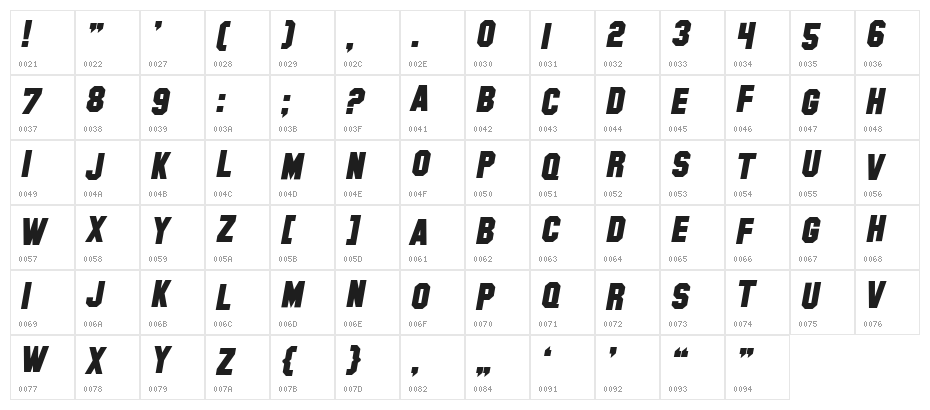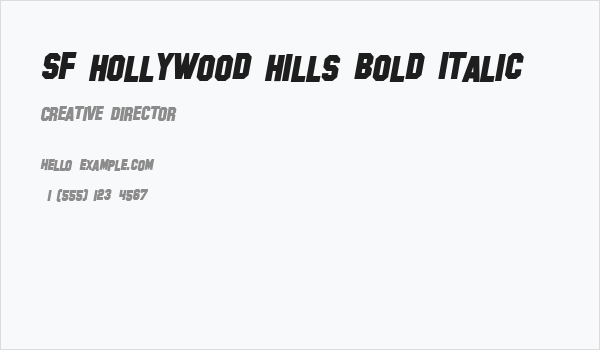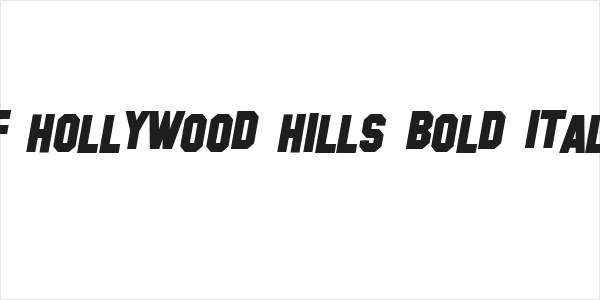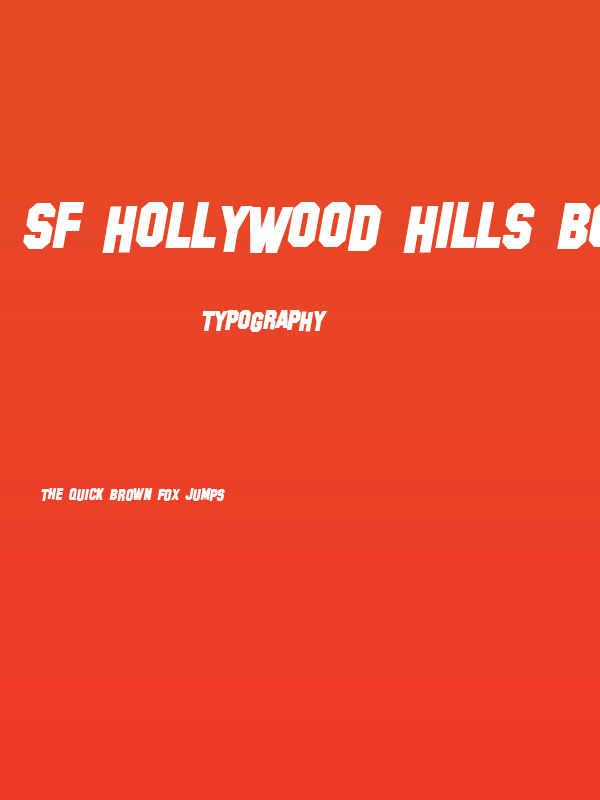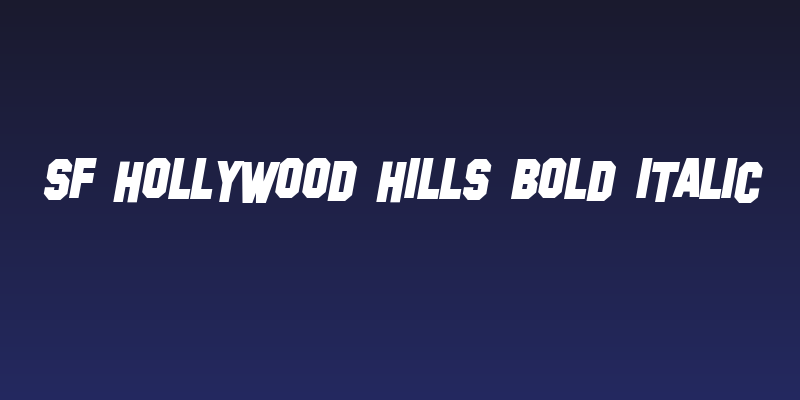
SF Hollywood Hills Bold Italic Font
SF Hollywood Hills Bold Italic Description
This font exhibits a bold and dynamic style with a distinct italic slant, giving it a sense of movement and energy. The characters are robust and angular, featuring sharp edges and a geometric structure that conveys strength and modernity. The uppercase and lowercase letters maintain a consistent design, with the lowercase mirroring the uppercase in form but reduced in size. Numerals are equally bold, ensuring visibility and impact. The special characters are designed to match the overall aesthetic, maintaining the bold and italicized look. This font is ideal for making a strong visual statement.
| Proposed Projects | Ideal for branding, sports team logos, movie posters, and any project requiring a bold, impactful typeface. |